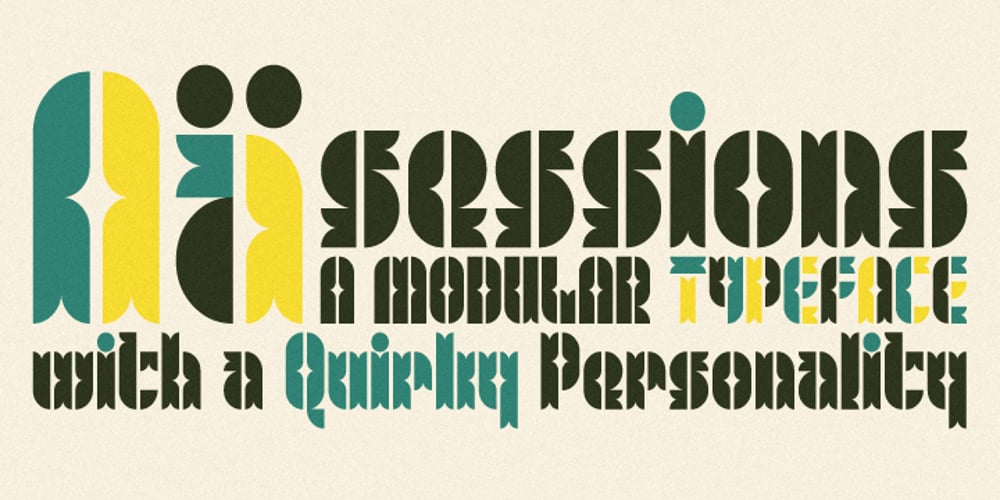
Sessions Font Family was designed by John Skelton and published by Afrojet. Sessions contains 1 styles and family package options. Afrojet Type Foundry presents Sessions, a heavyweight modular typeface with a quirky personality. The design is a fresh reimagination of Joseph Albers’ classic Kombinationsschrift alphabet. It utilizes modular, repeating stylized forms to bring dimensionality and personality to the page. Sessions takes advantage of OpenType’s Stylistic Alternates feature with: two numeral options (cap-height and x-height), the option to ‘turn off’ the splayed bottoms of certain glyphs, and numerous alternate characters. All together, these options allow you the designer to create unique and custom designs.